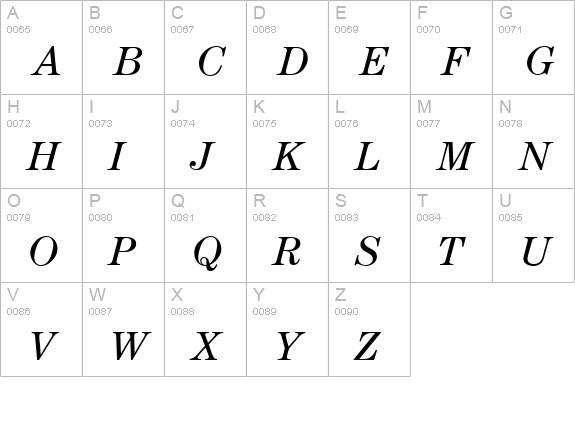
ModernCentury-Italic Font Details
ModernCentury-Italic is a distinctive, italic variant in the ModernCentury typeface family \xE2\x80\x94 well suited to design and typography projects.
ModernCentury-Italic is a sleek and stylish font that combines the elegance of classic typefaces with a modern twist. Its slanted design exudes sophistication and is perfect for adding a touch of contemporary flair to any project. The italicized letters flow seamlessly together, creating a sense of movement and fluidity. This versatile font is ideal for a wide range of design projects, from branding and advertising to invitations and social media graphics. Whether you're creating a sleek logo for a tech startup or designing an elegant wedding invitation, ModernCentury-Italic is sure to make a statement. Best of all, ModernCentury-Italic is available for free download at FontsMarket.com. This means you can start using this stylish font in your projects right away, without having to worry about any additional costs. Don't miss out on the opportunity to elevate your designs with the timeless appeal of ModernCentury-Italic. Download it today and see the difference it can make!